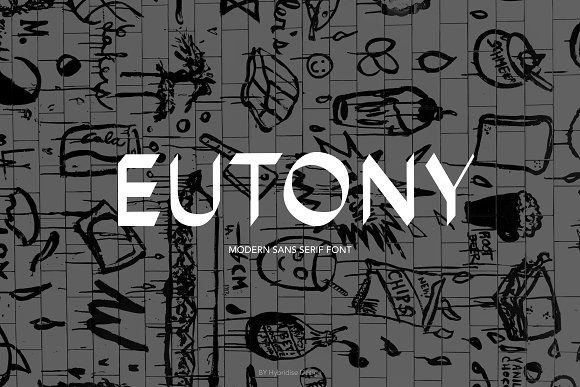
Calling all design enthusiasts and typography lovers! Prepare to be captivated by Eutony Font, the sans serif masterpiece that will elevate your creative projects to new heights. Crafted with passion and precision by Hybridbee Design, Eutony boasts a unique and alluring aesthetic that will make your designs stand out from the crowd.
Indulge in the modern and artsy charm of Eutony. Its sleek lines and harmonious curves lend a touch of sophistication to any design, whether it's a striking poster, an eye-catching headline, or a memorable logo. Unleash your creativity and let Eutony inspire you to create unforgettable user experiences.
But Eutony's allure extends far beyond its visual appeal. Its exceptional readability and versatility make it the perfect choice for both digital and print projects. Whether you're designing a website, a mobile app, or a captivating brochure, Eutony ensures effortless communication and a seamless user experience.
Embrace the power of Eutony Font today and add a touch of magic to your designs. Let its modern aesthetic and exceptional functionality empower you to create projects that ignite emotions and leave a lasting impression.